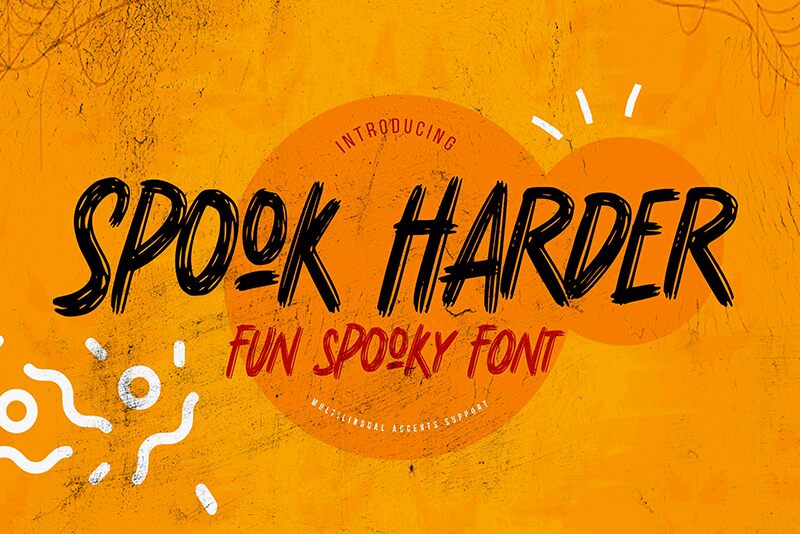
Spook Harder
Spook Harder, crafted by the innovative minds at Gassstype, is a font that breaks the mold of traditional typography with its brush style and semi-light weight. This font embodies a modern twist on spookiness, boasting dramatic movement and a casual, quick-stroke design that lends authenticity to any project. With its textured feel and natural look, Spook Harder is not just another font; it's a gateway to creating designs that are modern, authentic, and brimming with fun.
Its suitability for an array of creative endeavors is unmatched—ideal for everything from striking labels to eye-catching posters. The versatility extends to branding, packaging, greeting cards, and even website design. For those seeking to add an extra layer of personality to their work, Spook Harder offers 3 Ligature glyphs and 34 Alternate glyphs accessible via the OpenType panel. This font doesn't just speak; it resonates with your audience through every curve and stroke.